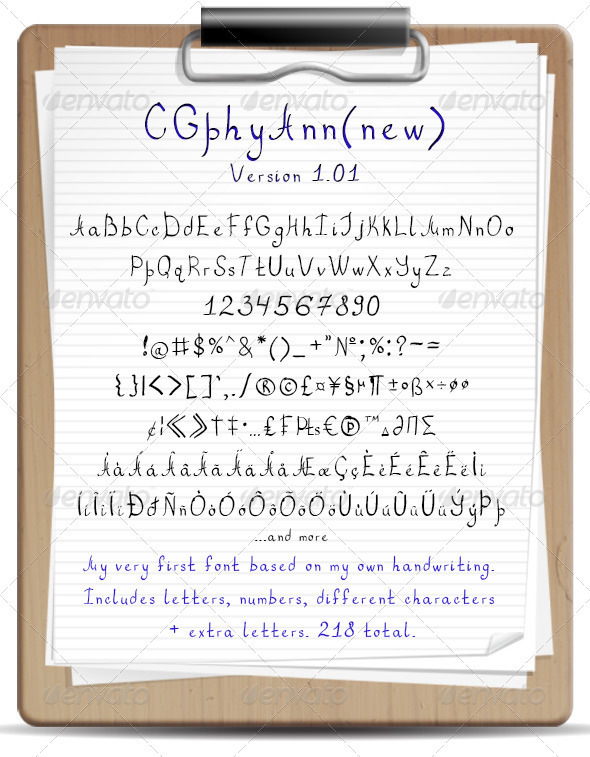
My very first font based on my own handwriting.
Includes letters, numbers, different characters + extra letters. 218 total.
P.S. The name of the font of the word calligraphy, so much don’t guess what that means))